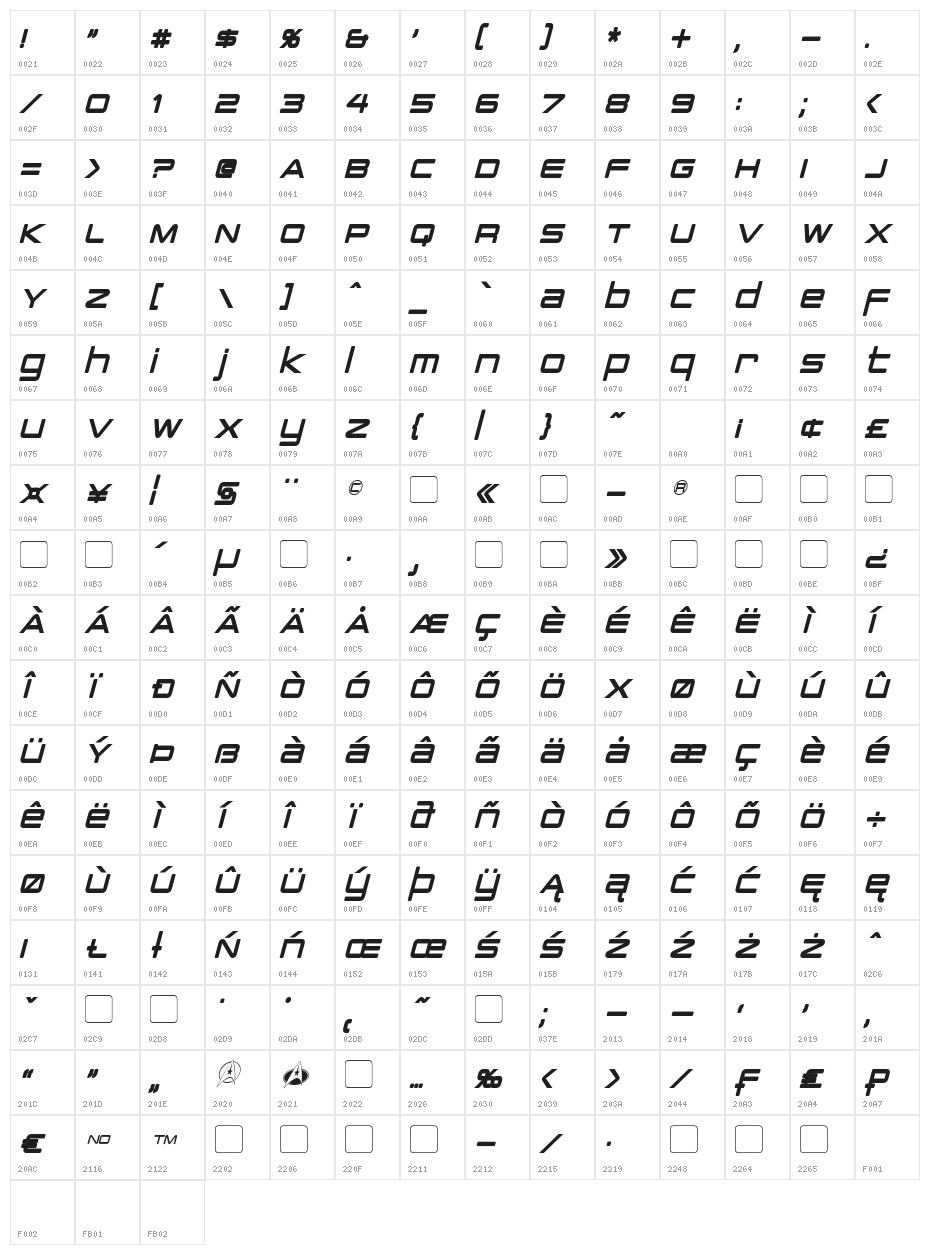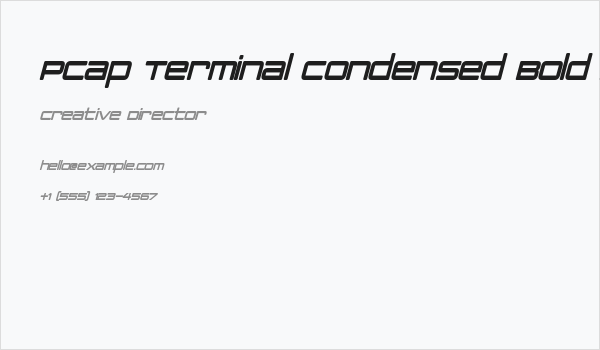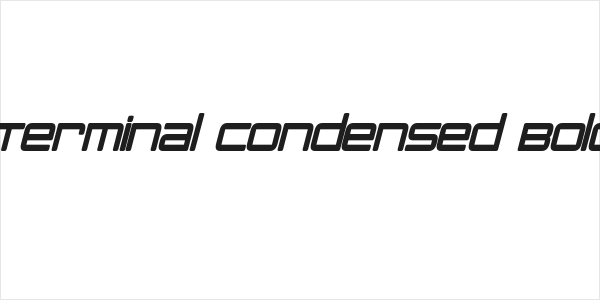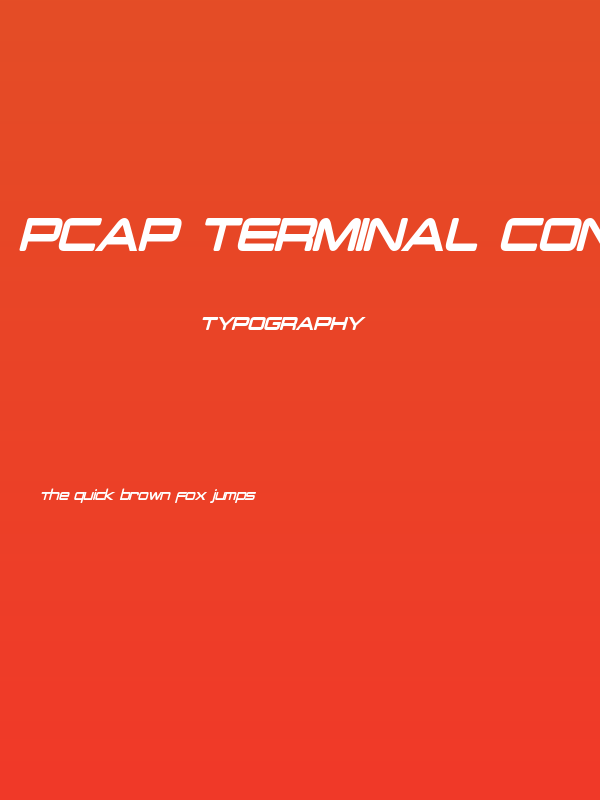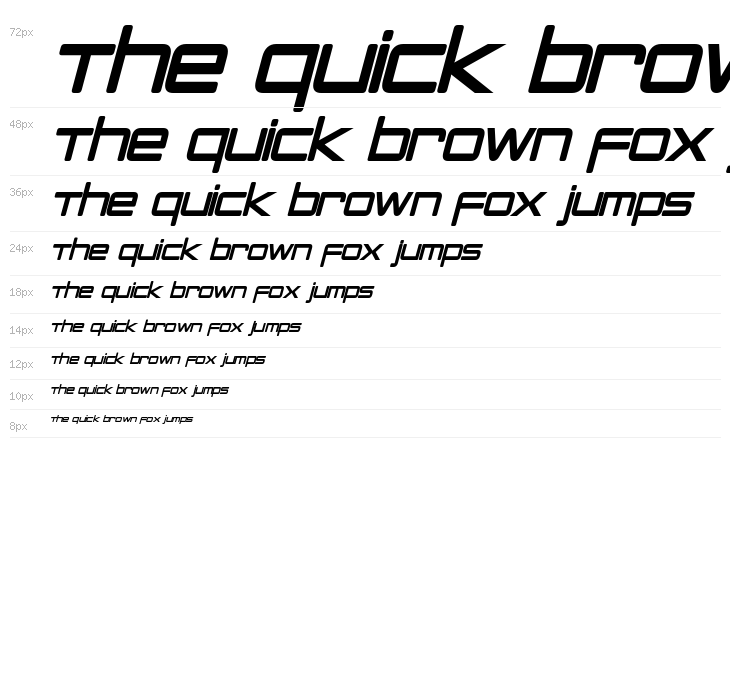
PCap Terminal Condensed Bold Italic Font
PCap Terminal Condensed Bold Italic Description
This font exhibits a modern and sleek design with a condensed and bold appearance. The italicized style adds a dynamic and forward-leaning aspect to the characters, enhancing its futuristic and technical feel. The characters are uniformly structured with a consistent stroke width, contributing to a clean and organized look. The angular and geometric shapes of the letters provide a sense of precision and efficiency, making it suitable for digital and tech-oriented applications. The font maintains a balanced character spacing, ensuring readability while preserving its compact form. The numerals and special characters are designed to match the overall aesthetic, offering a cohesive visual experience.
| Use Case | Headlines, Logos, Digital Interfaces |
| Proposed Projects | Ideal for tech branding, digital interfaces, futuristic posters, and software development environments. |